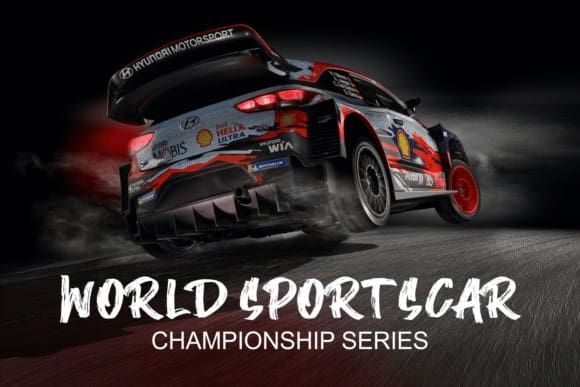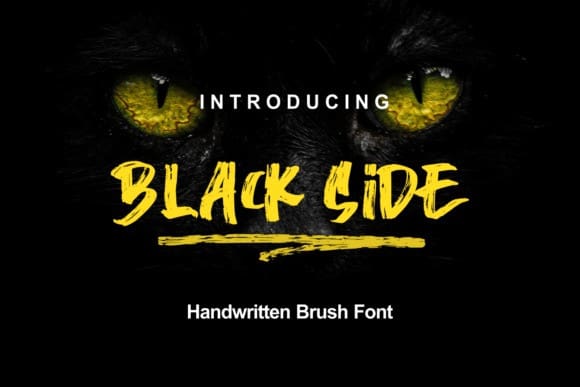
Black Side Font
Black Side Font is a cool and trendy handwritten brush display font. No matter the topic, this font will be an incredible asset to your fonts’ library, as it has the potential to elevate any creation.